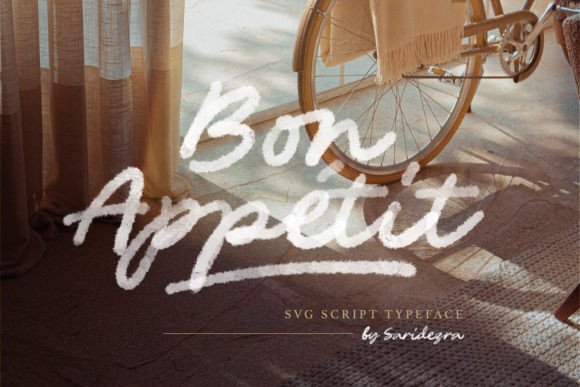
Looking to add a touch of elegance and artistry to your designs? Look no further than Bon Appetit Font, the perfect choice for script tattoos and beyond. Created by the talented saridezra, this font is more than just a stunning addition to your collection – it's a gateway to a world of creativity and self-expression.
What sets Bon Appetit Font apart from the rest is its unique transparency watercolor texture, adding a mesmerizing depth to your projects. With both SVG (SVG OTF) and vector (OTF) formats available, this font ensures that every stroke and curve is captured with precision and clarity.
One of the standout features of Bon Appetit Font is its collection of ligatures, which effortlessly enhance the natural and handmade feel of your designs. These ligatures seamlessly connect letters, creating a fluid and organic look that will captivate viewers and leave a lasting impression.
To truly make a statement, the underline option in Bon Appetit Font is your secret weapon. By adding an underline to your text, you instantly create a sense of drama and emphasis, making your designs pop and demand attention.
But what truly sets Bon Appetit Font apart is its versatility. Perfect for script tattoos, this font also shines in a variety of design projects, including logos, invitations, posters, and more. Its timeless elegance and charming aesthetic make it suitable for both modern and traditional designs, ensuring its relevance for years to come.
When you choose Bon Appetit Font, you're not just investing in a font – you're investing in a world of possibilities. Let your imagination run wild as you explore the endless creative opportunities this font brings to your projects. From delicate and romantic to bold and impactful, Bon Appetit Font has the power to transform your designs and elevate them to new heights.